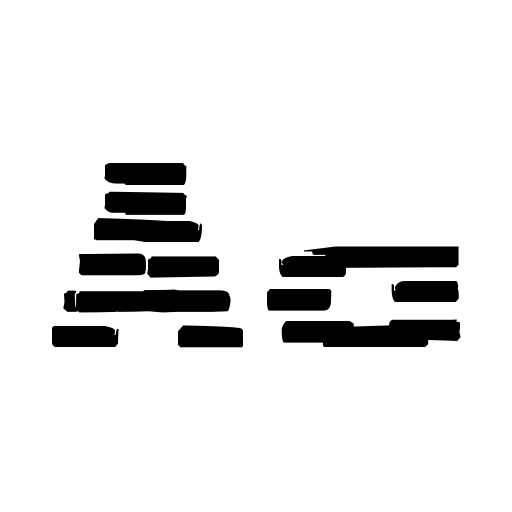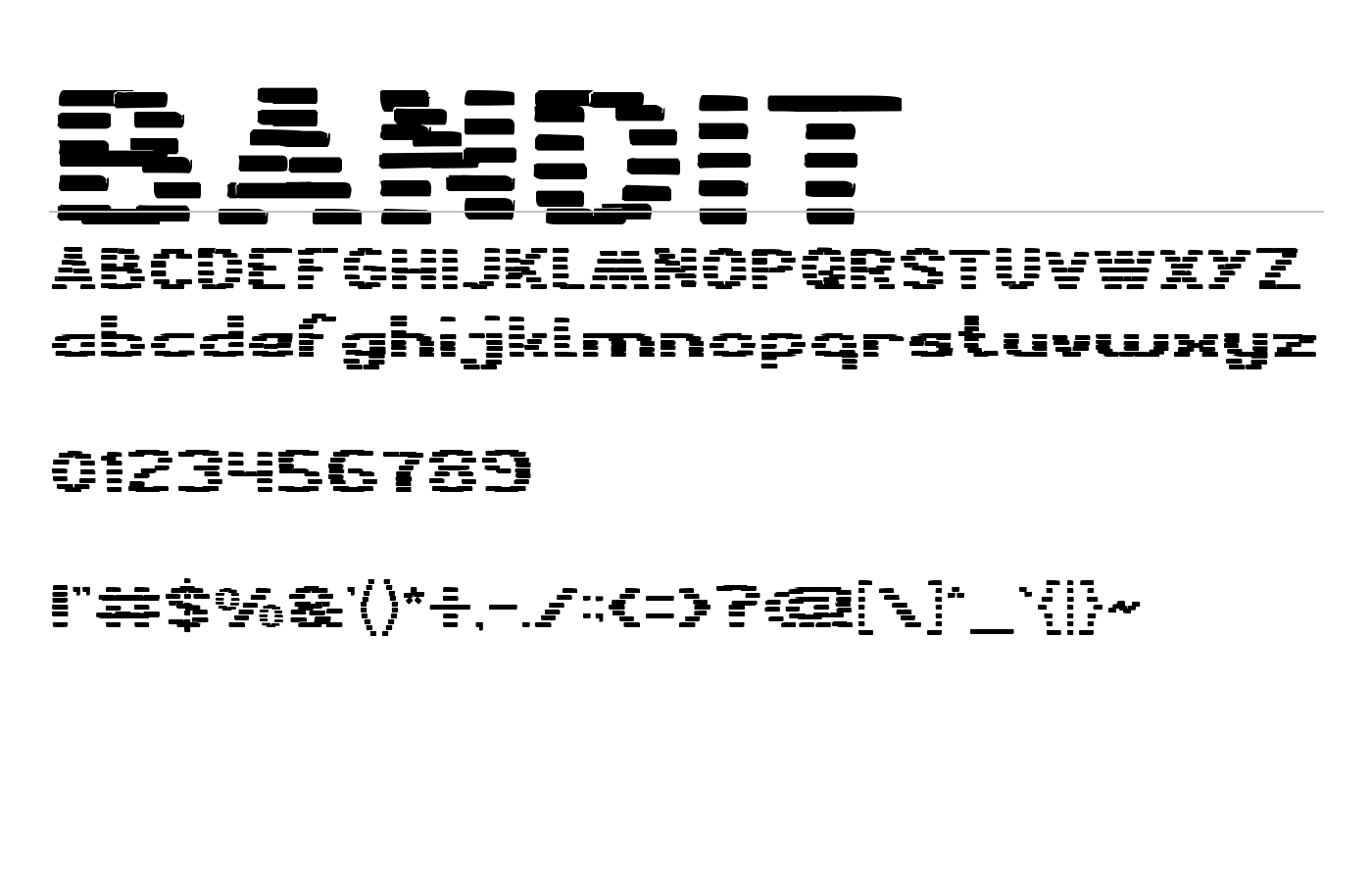
BANDIT is a bold, sans serif display font characterized by its unique, segmented stroke style that creates a futuristic, digital glitch effect. Its strong, blocky letterforms with consistent width and moderate x-height give it a tech-inspired, edgy personality ideal for attention-grabbing headlines, logos, and modern branding. This font works best in creative projects that aim to convey innovation and cutting-edge style.
BANDIT Font
About BANDIT Font